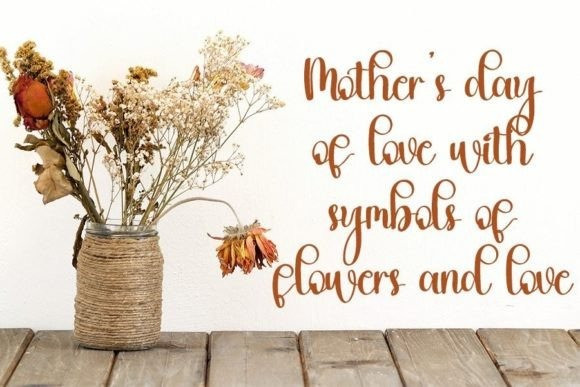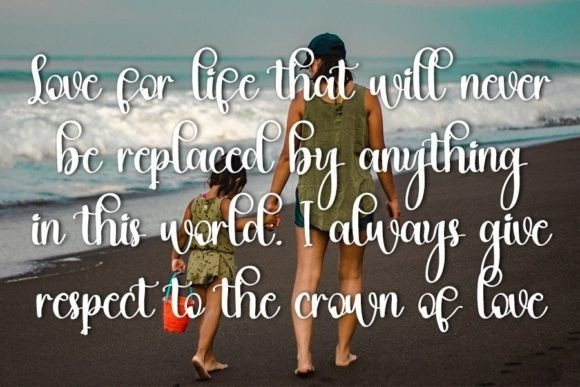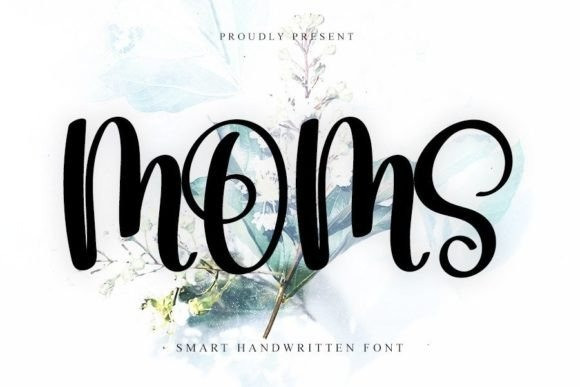
Moms Font
MOMS Font is a stylish handwritten font with a contemporary atmosphere and impeccable form, inspired by a timeless classic calligraphy. Balanced and varied, this font was designed to enhance the beauty of your projects.